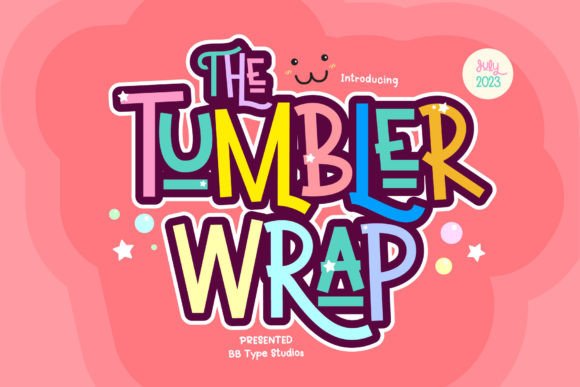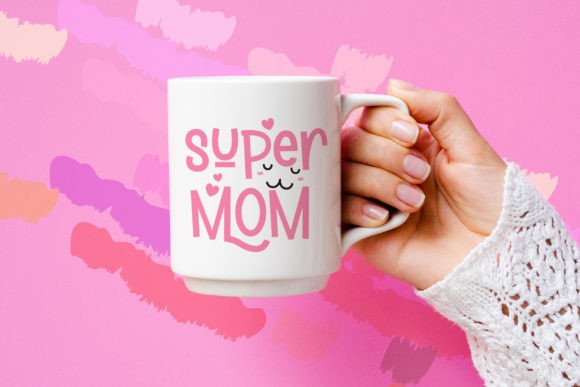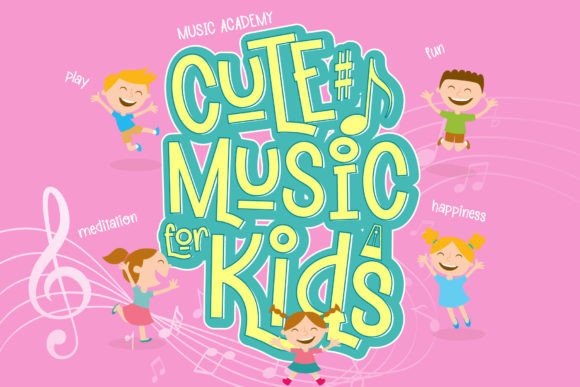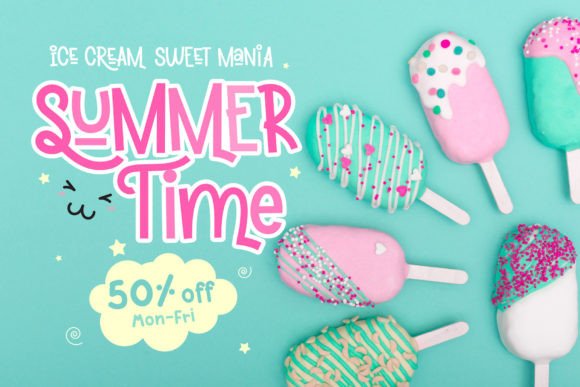
Tumbler Wrap Font
Tumbler wrap is a lovely and sweet display font. No matter the topic, this font will be an incredible asset to your font library, as it has the potential to elevate any creation. This font is PUA encoded which means you can access all the glyphs and ligatures with ease!